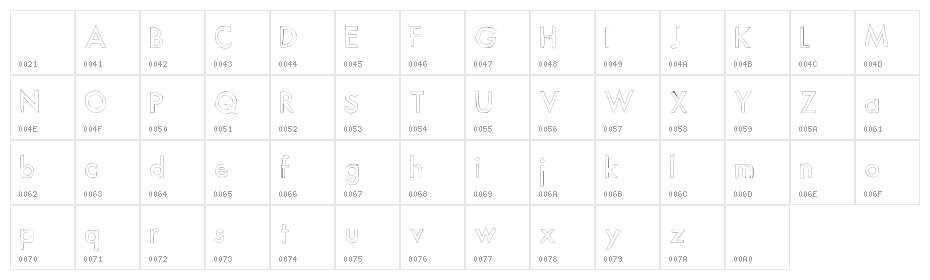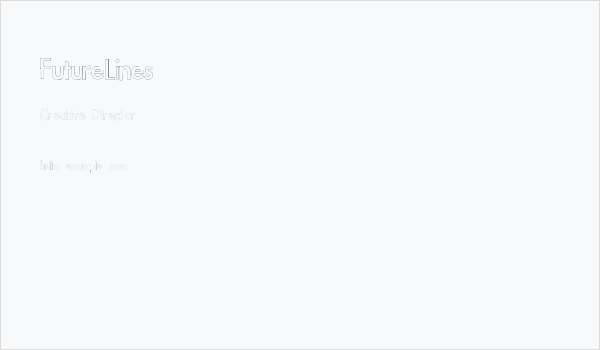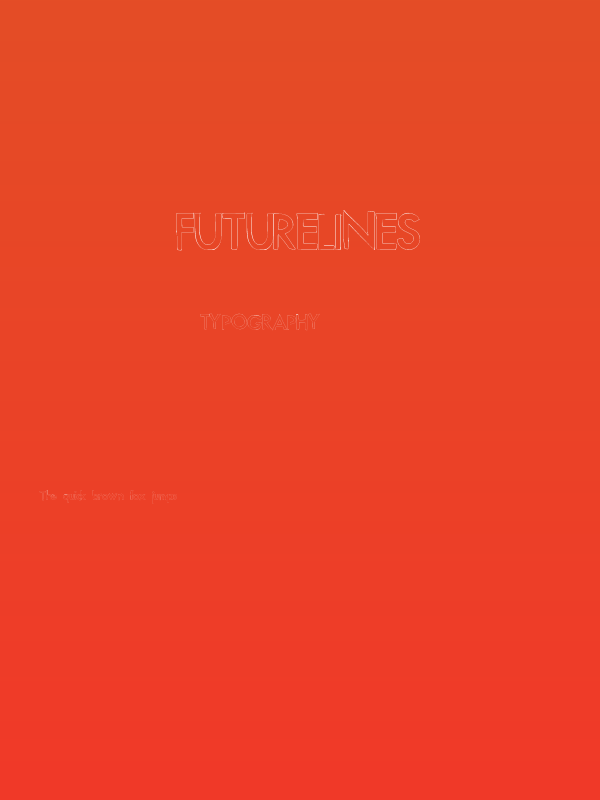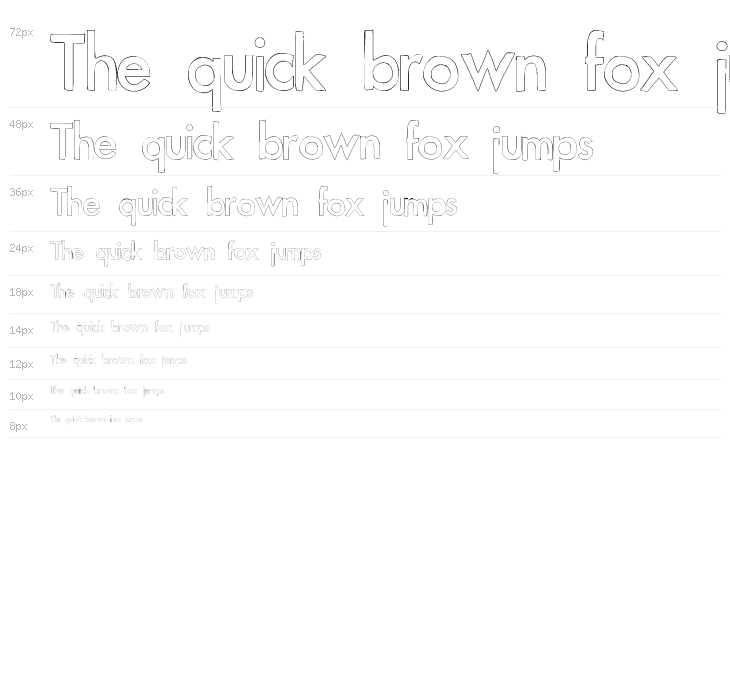
FutureLines Font
FutureLines Description
This font features a modern, geometric design with clean lines and a futuristic aesthetic. The characters are constructed with a consistent stroke width, giving it a uniform appearance. The uppercase letters are bold and assertive, while the lowercase letters maintain a similar style with slightly softer curves. The numerals and special characters are designed to match the overall style, ensuring a cohesive look across all text. This font is ideal for projects that require a contemporary and sleek appearance, such as technology branding, modern advertising, and innovative product packaging.
| Proposed Projects | Ideal for technology branding, modern advertising, and innovative product packaging. |